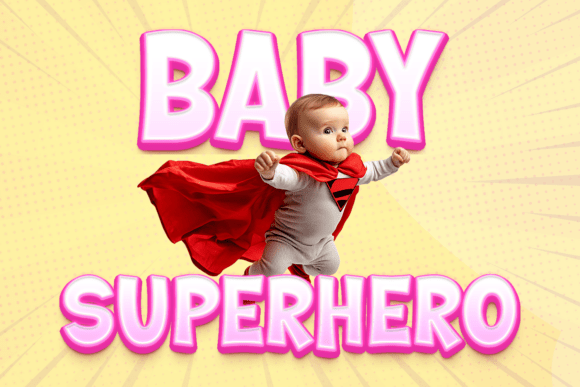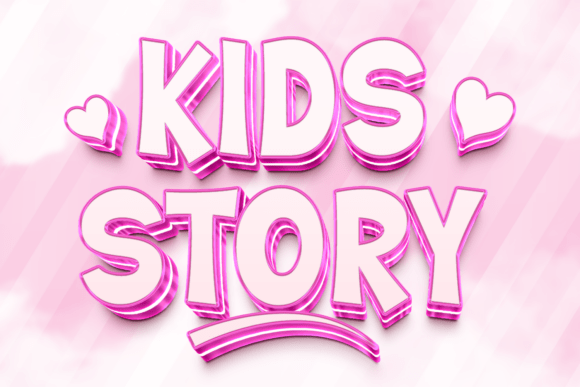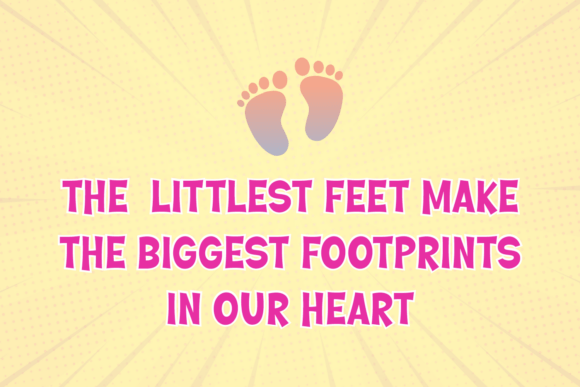
Introduction to Baby Proud Font
Baby Proud is a cute cartoon display font, featuring a bold and fun font with tons of impact.
It is playful and strong Perfect for kids and children’s items yet cool and unique for products with bags of character, It’s suitable such as t-shirts, sportswear, logos, advertisements, clothing, and more.